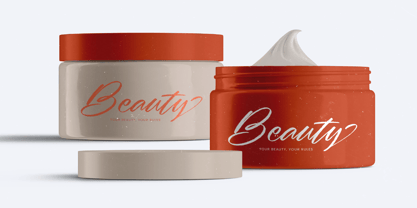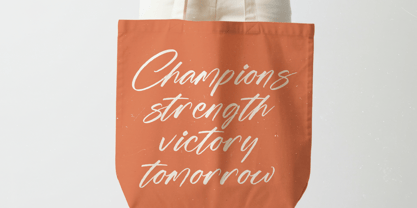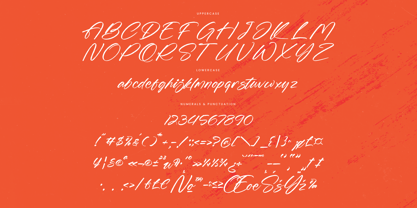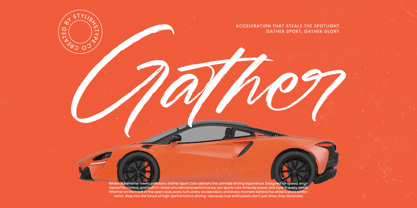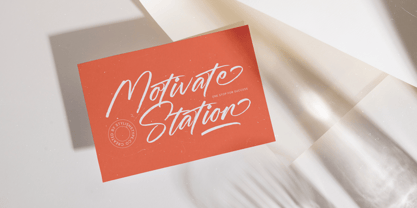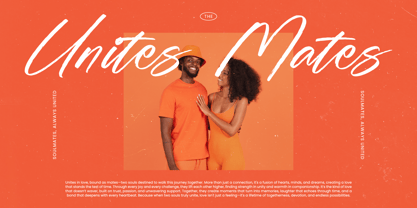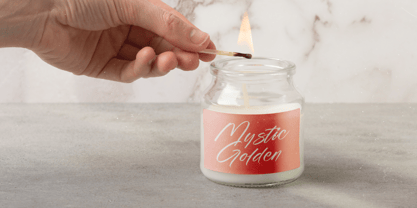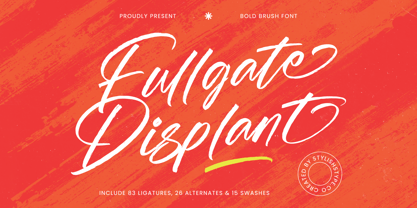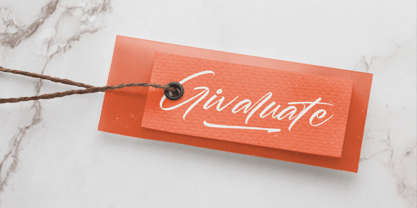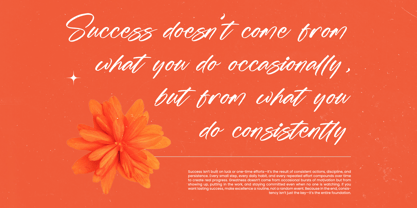
Fullgate Displant
The Fullgate Displant Font Family was designed by Heru Utama Putra and published by Stylishtype Studio. Fullgate Displant contains 2 styles and family package options. More about this family
Fullgate Displant - Bold Brush Font , from Stylishtype, Suitable for any projects such as: logos, branding projects, homeware designs, product packaging, mugs, quotes, posters, shopping bags, t-shirts, book covers, name card, invitation cards, greeting cards, label, photography, watermark, special events, and all your other luxury and beautiful projects that need a Luxury Script taste.